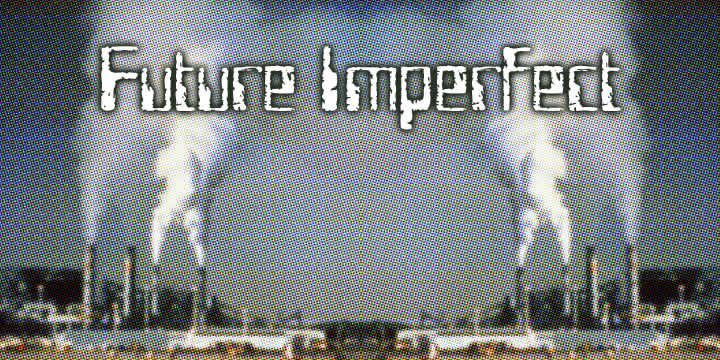
Future Imperfect Font Free Download – A Cyberpunk Display Typeface with Dystopian Edge
Step into a neon-lit dystopia with Future Imperfect Font Free Download, a high-tech display font that blends retro-futurism with cyberpunk aesthetics. Perfect for sci-fi themes, gaming interfaces, and tech branding, this font delivers a gritty, digital-ready look with razor-sharp precision.
Why Future Imperfect Font Stands Out
1. Cyberpunk Design DNA
Angular, glitch-inspired letterforms
Pixel-perfect geometric construction
Built for holographic/neon effects
Cyberpunk game interfaces
Sci-fi movie titles
Virtual reality promotions
Dystopian book covers
DIY synthwave posters
Gaming clan logos
Futuristic school projects
Cyberpunk fan art
Esports team branding
Smart device interfaces
Tech conference graphics
Sci-fi streaming thumbnails
Designer's Hacking Tips
Glowing neon effects
Grid-based cybernetic layouts
CRT screen texture overlays
36pt+ for full impact
Works best in ALL CAPS
Ideal for short, high-impact phrases